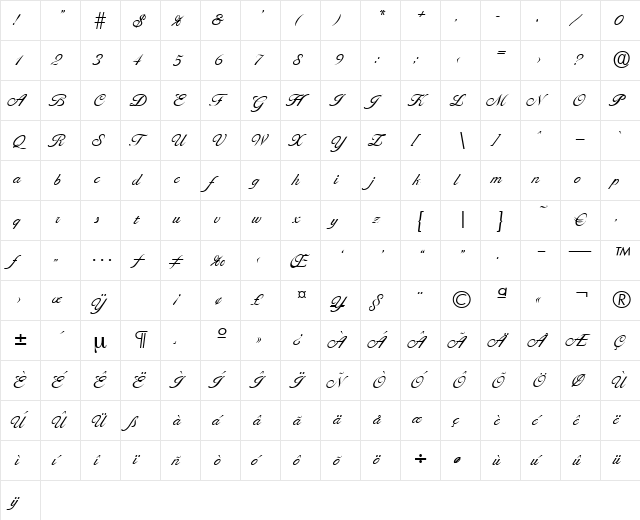
Ballantines-Light Regular
Design Context for Ballantines-Light Typeface
Ballantines-Light takes a measured approach to typography — its balanced proportions and neutral character make it a reliable workhorse for both digital and print work. Its slender proportions lend an understated elegance to any composition.